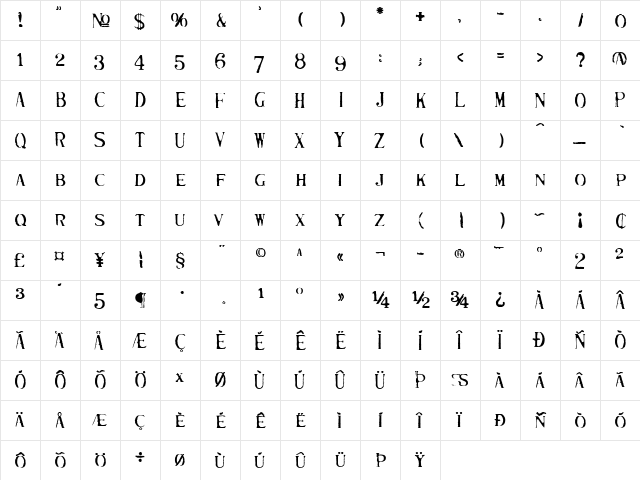
Mutilated Medium
Design Context for Mutilated Typeface
Mutilated is a composed and adaptable typeface that performs quietly and consistently across a wide range of design contexts.